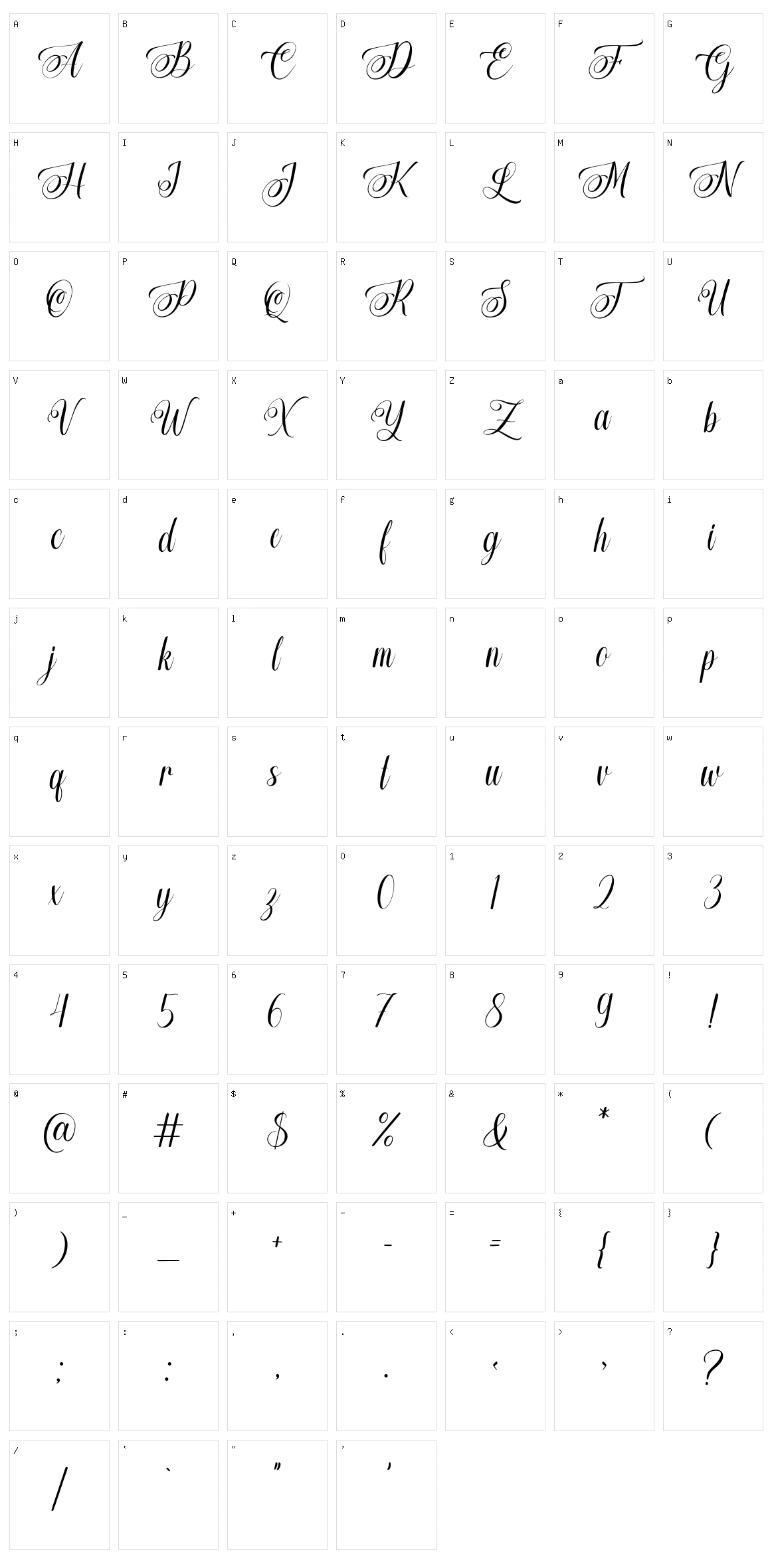
The free font La Flibusti?re is carefully designed by Octotype | Thomas Boucherie, showcasing a thoughtful balance of creativity and usability and falls under the Script font style. When you download the ZIP file, it contains only 38.31 KB of font files, making it lightweight and quick to download. Please review the license details below to understand permitted usage and distribution rights. If license information is not available, we recommend using this font for personal projects only or contacting the author directly for commercial usage permissions.